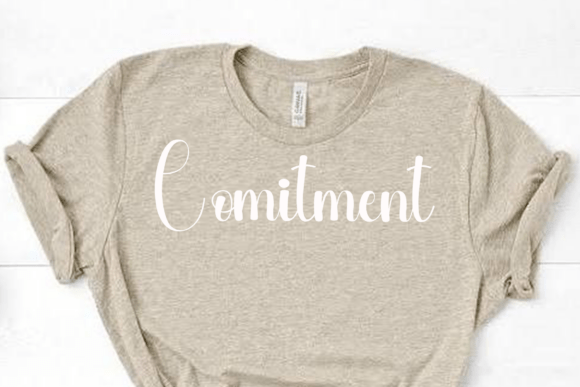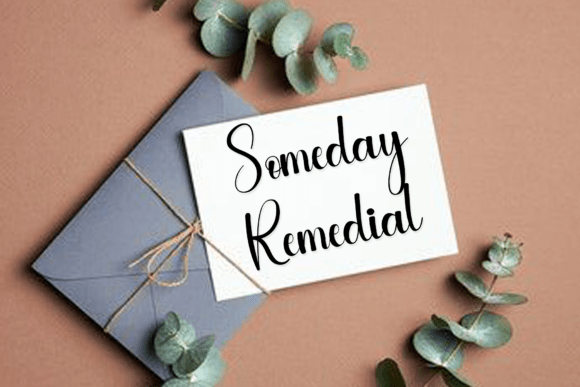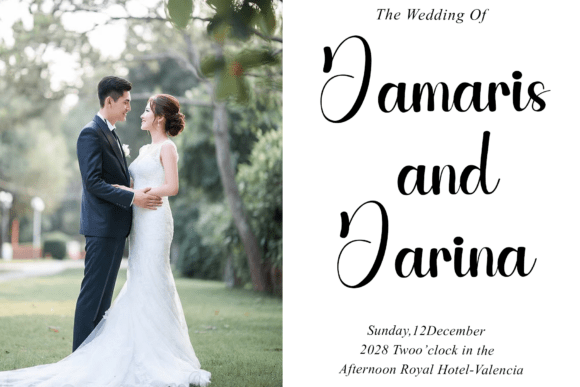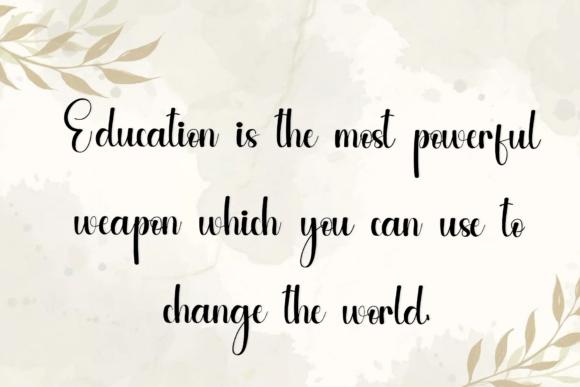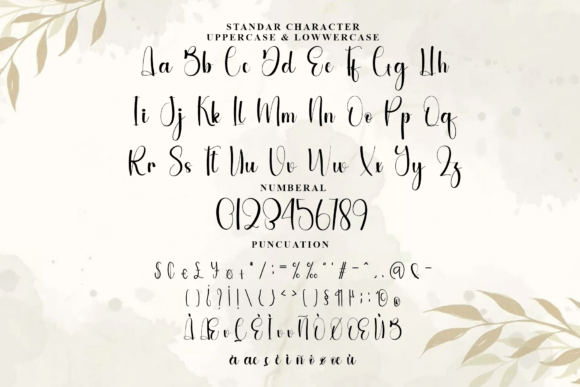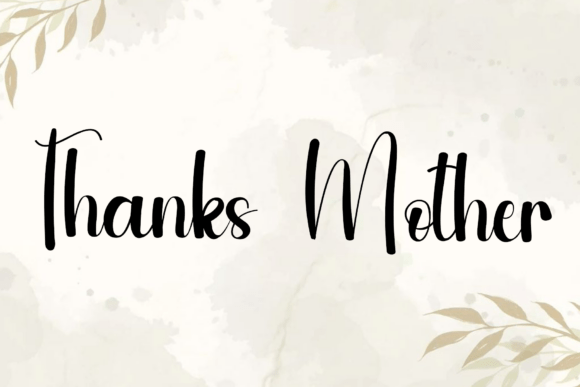
Introducing Angela Handwriting Font: Elevate Your Creative Projects with Elegance
Are you looking for a font that can add a touch of sophistication and intimacy to your creative projects? Look no further than Angela Handwriting, a beautiful script typeface that is sure to captivate your audience. With its elegant, elongated letterforms and fluid, monolinear stroke, this font perfectly mimics the natural rhythm of refined penmanship.
The Characteristics of Angela Handwriting Font
Angela Handwriting font boasts a range of characteristics that make it the perfect choice for designers and crafters looking to add a personal touch to their work. Some of its key features include:
- Elegant, elongated letterforms: Each letter in the Angela Handwriting font is carefully crafted to exude elegance and sophistication, making it perfect for projects where you want to make a lasting impression.
- Fluid, monolinear stroke: The font’s fluid, monolinear stroke gives it a natural, handwritten feel that is sure to resonate with your audience.
- Tall ascenders: The tall ascenders in Angela Handwriting add to its elegance, creating a sense of grandeur and refinement.
- Organic, sweeping connections: The font’s organic, sweeping connections between letters create a sense of fluidity and movement, making it perfect for projects where you want to convey a sense of dynamism.
Perfect for a Range of Creative Projects
Angela Handwriting font is incredibly versatile, making it suitable for a wide range of creative projects. Some of the ways you can use this beautiful font include:
- Independent wedding stationery: Add a touch of elegance and sophistication to your wedding stationery with Angela Handwriting font.
- Lifestyle boutique branding: Use Angela Handwriting font to create a unique and captivating brand identity for your lifestyle boutique.
- Heartfelt greeting cards: Create beautiful, personalized greeting cards that will make your recipients feel special.
- High-impact social media headers: Use Angela Handwriting font to create eye-catching social media headers that will help your content stand out from the crowd.
Why Choose Angela Handwriting Font?
So why should you choose Angela Handwriting font for your creative projects? Here are just a few reasons:
- Unique and captivating: Angela Handwriting font is a unique and captivating script typeface that is sure to grab the attention of your audience.
- Elegant and sophisticated: The font’s elegant, elongated letterforms and fluid, monolinear stroke give it a refined and sophisticated feel.
- Versatile: Angela Handwriting font is incredibly versatile, making it suitable for a wide range of creative projects.
- Easy to read: Despite its elegant and sophisticated feel, Angela Handwriting font is easy to read, making it perfect for projects where you want to convey a message.
Tips for Using Angela Handwriting Font
Here are a few tips for getting the most out of Angela Handwriting font:
- Use it sparingly: While Angela Handwriting font is beautiful, it can be overwhelming if used too much. Use it sparingly to add a touch of elegance and sophistication to your projects.
- Experiment with different colors: Angela Handwriting font looks great in a range of colors, so don’t be afraid to experiment and find the perfect color for your project.
- Pair it with other fonts: Angela Handwriting font pairs well with a range of other fonts, so feel free to experiment and find the perfect combination for your project.
Angela Handwriting font is a beautiful script typeface that is sure to elevate your creative projects. With its elegant, elongated letterforms and fluid, monolinear stroke, this font perfectly mimics the natural rhythm of refined penmanship. Whether you’re looking to create independent wedding stationery, lifestyle boutique branding, heartfelt greeting cards, or high-impact social media headers, Angela Handwriting font is the perfect choice. So why wait? Download Angela Handwriting font today and start creating beautiful, captivating projects that will leave a lasting impression on your audience.